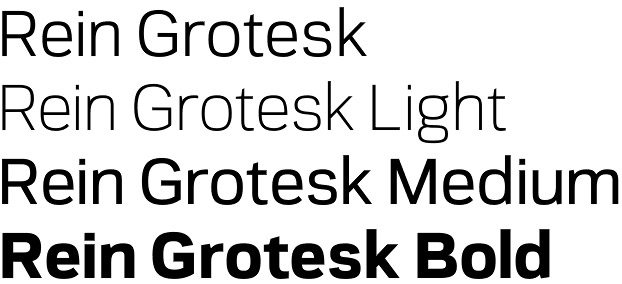
Rein Grotesk font
Rein Grotesk font by the Highlander Jason Aitcheson (The Northern Block foundry) is a Sans Serif font family consisting of seven weights: Light, Regular, Medium, Demi-Bold, Semi-Bold, Bold, and Extra-Bold – 240 characters with manually edited kerning. It’s a low-contrast grotesque typeface with a strong and clear outlook. Rein Grotesk font family features tall structure and open counters, thus obtaining excellent legibility at small point sizes, while keeping a fine and neutral look at big ones.
Rein Grotesk font is a versatile tool with a variety of applications – scientific projects, editorials, presentations, corporate identity designs, and many others. With the heavy weights taking on a less subtle nature due to it’s high stroke variation, transforming Rein Grotesk typeface into a font that shines with an abundance of character, ready to inject personality into any project and graphic environment.
Jason Aitcheson is Glasgow design graduate from Duncan of Jordanstone College of Art and Design. He fulfilled his ambition to become a type designer by joining The Northern Block in 2013 when he began his apprenticeship programme. Jason has a clean, modernistic, structural style and a strong interest in the functionality of letters.